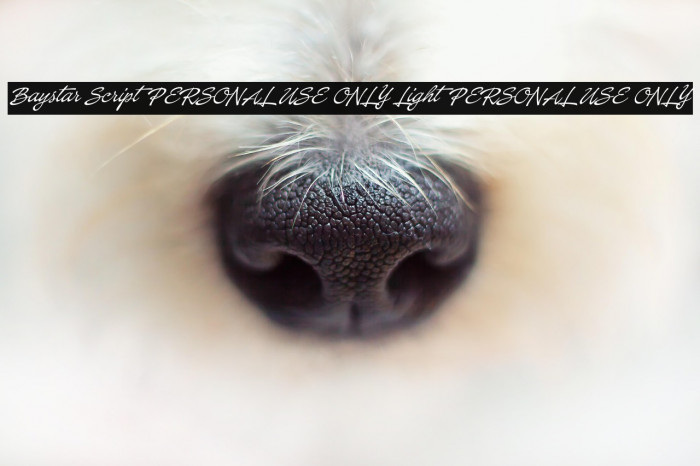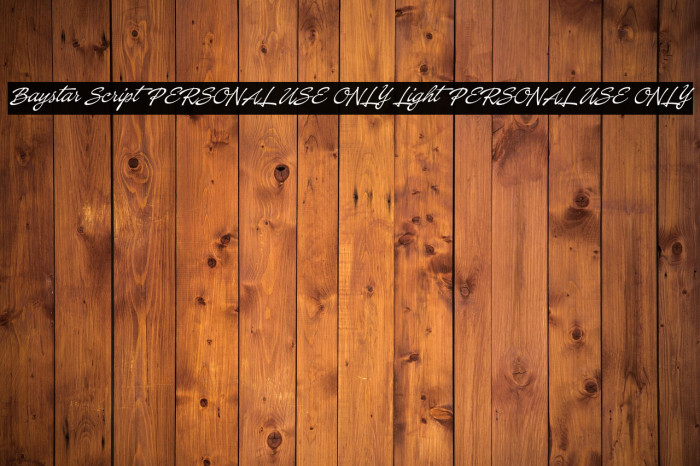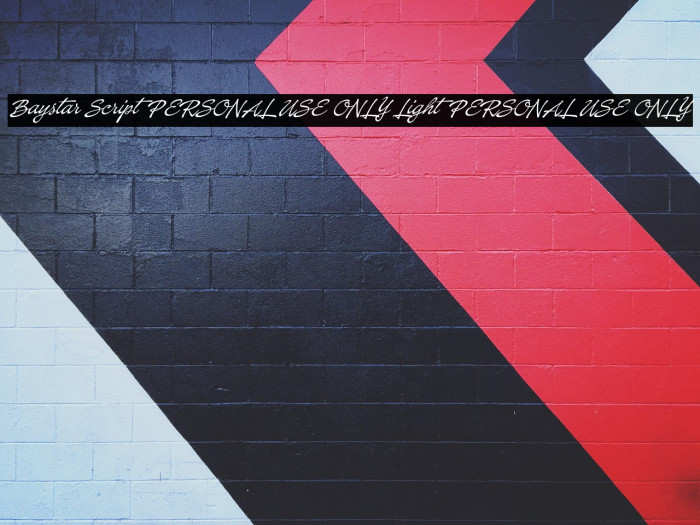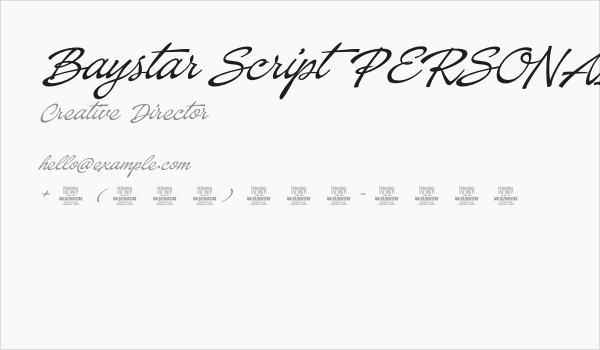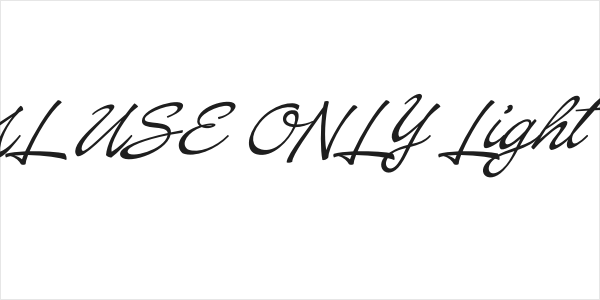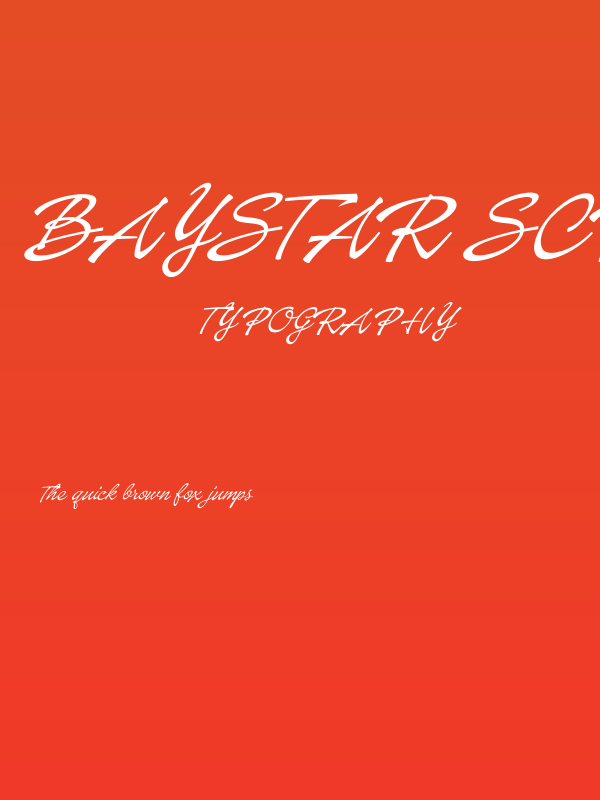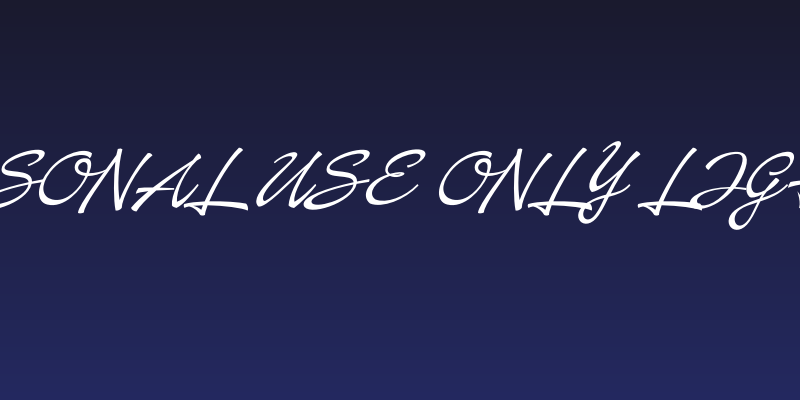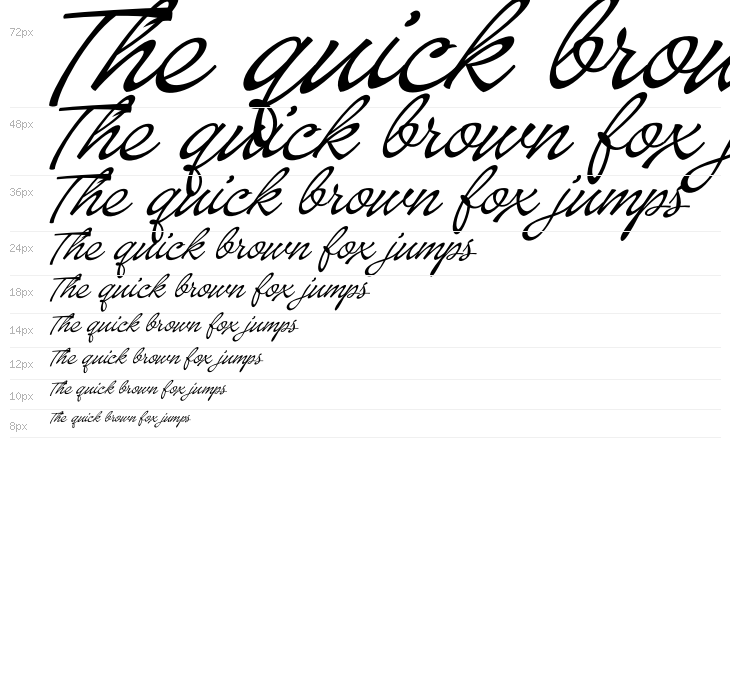
Baystar Script PERSONAL USE ONLY Light PERSONAL USE ONLY Font
Baystar Script PERSONAL USE ONLY Light PERSONAL USE ONLY Description
This elegant script font features fluid, connected strokes that emulate the natural flow of handwriting. The uppercase letters are slightly larger and more ornate, while the lowercase letters maintain a consistent style with smooth curves and loops. The font's light weight adds a delicate touch, making it suitable for designs that require a personal or sophisticated feel. The special characters are crafted with the same attention to detail, ensuring a cohesive look across all elements. This font is ideal for projects that aim to convey elegance and style.
Overall StyleElegant
Use CaseLogos, Invitations, Personal Branding
Proposed ProjectsWedding invitations, greeting cards, personal branding, elegant packaging, and social media graphics.